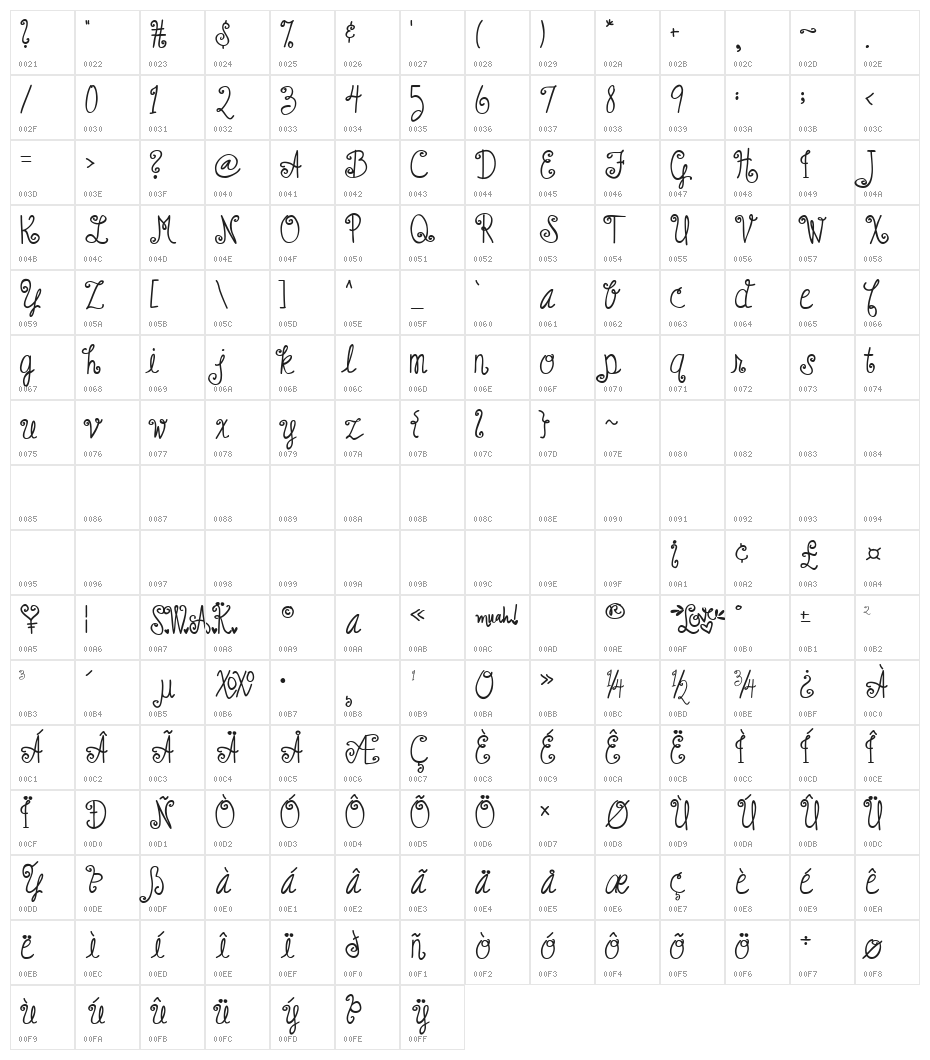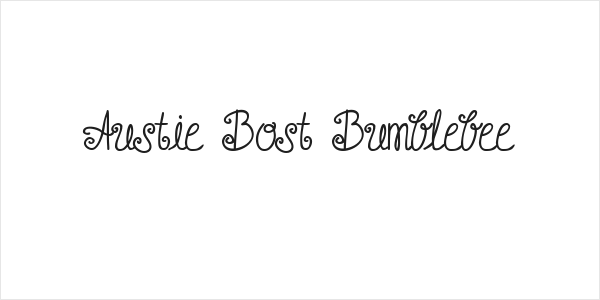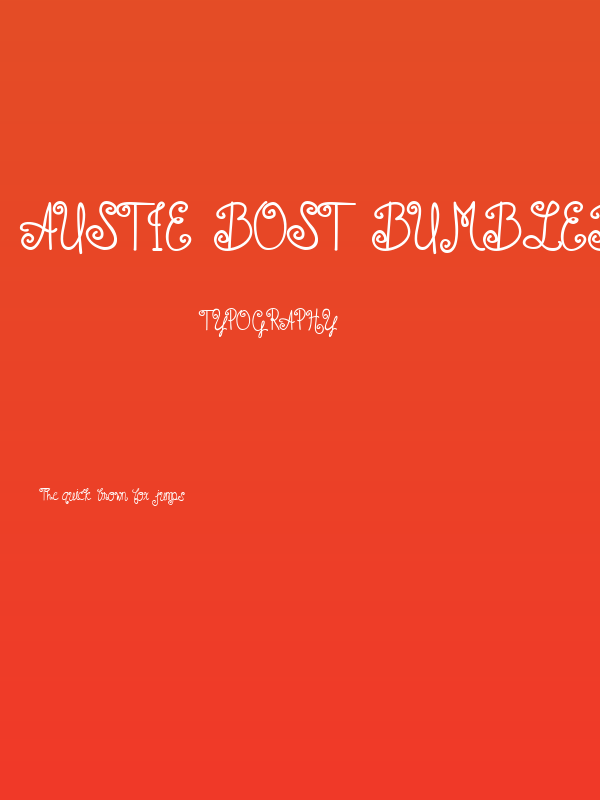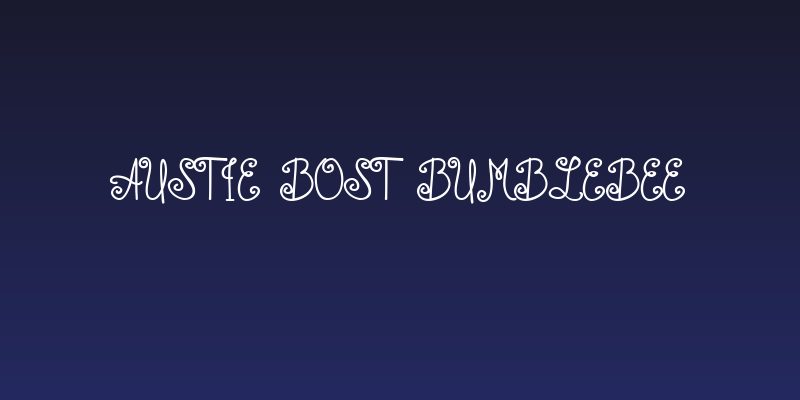
Austie Bost Bumblebee Font
Austie Bost Bumblebee Description
This whimsical and playful font features a decorative style with curly, swirly embellishments on each character. The uppercase letters are bold and eye-catching, while the lowercase letters maintain a consistent flow with a slightly more subdued flair. The numbers and special characters follow the same ornate design, making them perfect for adding a touch of fun and creativity to any project. The font's unique style is characterized by its intricate loops and curves, giving it a lively and energetic appearance. It is ideal for projects that require a touch of whimsy and charm.
| Overall Style | Playful, Whimsical, Decorative |
| Proposed Projects | Ideal for children's book covers, playful invitations, greeting cards, and creative branding projects. |